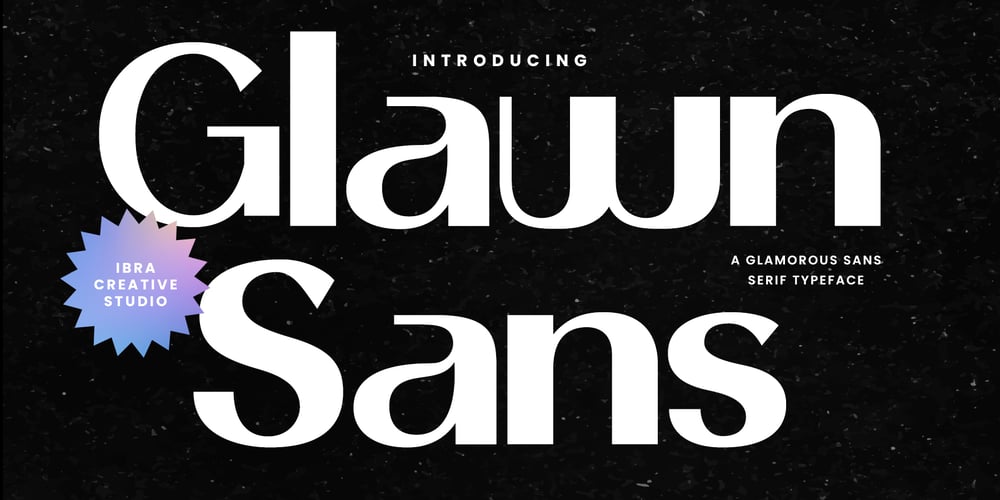
Glawn Sans
Glawn Sans font
Glawn Sans Font Family was designed by Roisatul Azizah and published by IbraCreative. Glawn Sans contains 1 styles and family package options. Glawn Sans – A Glamorous Sans Serif TypefaceGlawn Sans, a glamorous sans-serif typeface, epitomizes sophistication and modern elegance with its sleek lines and refined details. Designed to exude a sense of timeless glamour, each character is crafted with precision, offering a perfect balance between minimalism and luxurious flair. The clean and chic aesthetics of Glawn Sans make it a versatile choice for a myriad of design applications, from high-end branding to editorial layouts. Its carefully curated letterforms convey a sense of confidence and style, making it an ideal companion for projects that demand a touch of glamour. Whether used in fashion magazines, luxury packaging, or upscale branding, Glawn Sans effortlessly elevates the visual narrative, ensuring that every design radiates a glamorous allure that captivates the eye.Glawn Sans is perfect for branding projects, logo, wedding designs, social media posts, advertisements, product packaging, product designs, label, photography, watermark, invitation, stationery, game, fashion and any projects.Fonts include multilingual support for; Afrikaans, Albanian, Czech, Danish, Dutch, English, Estonian, Finnish, French, German, Hungarian, Italian, Latvian, Lithuanian, Norwegian, Polish, Portuguese, Slovak, Slovenian, Spanish, Swedish.